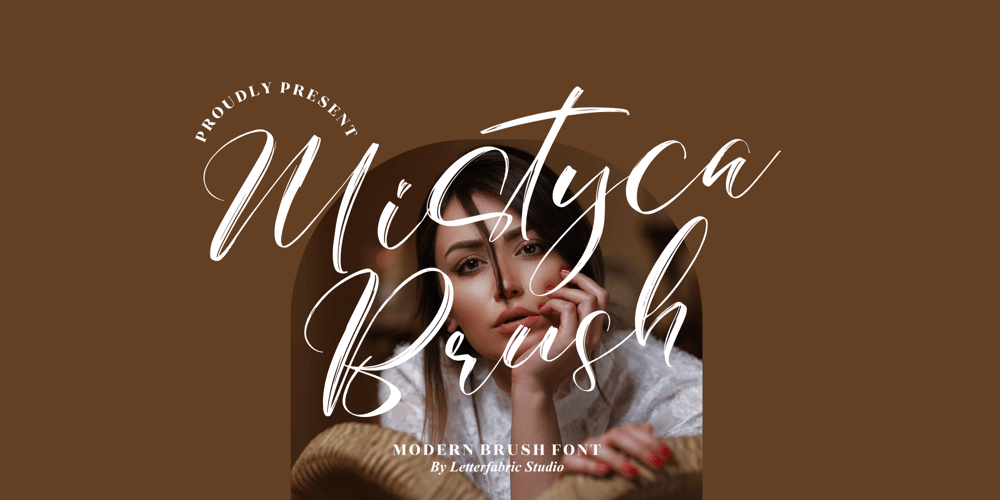
Mistyca Brush Font Family was designed by Heru Utama Putra and published by Letterena Studios. Mistyca Brush contains 2 styles and family package options. Mistyca Brush is a lovely and delicate script font that exudes elegance and class. This font was particularly crafted for those who need a beautiful and refreshing look to their designs. Mistyca Brush is PUA encoded which means you can access all glyphs and swashes with ease!